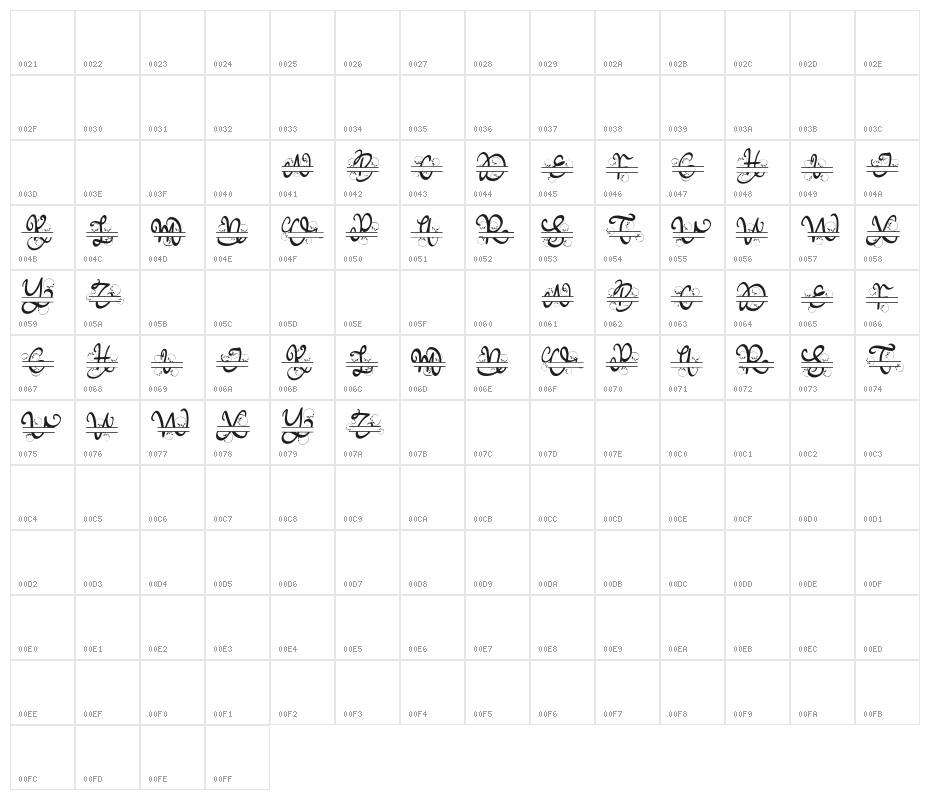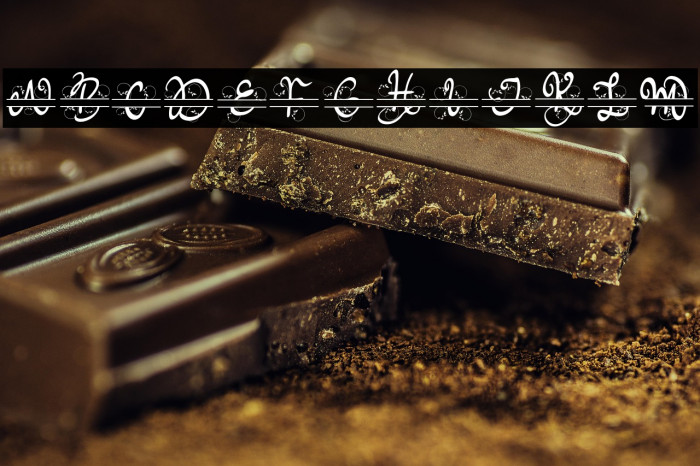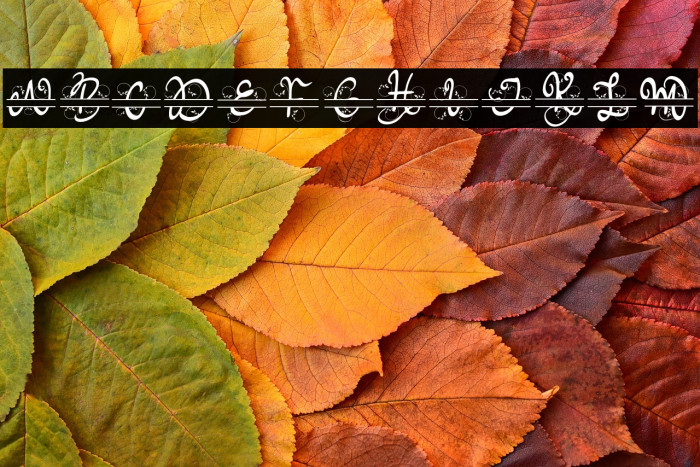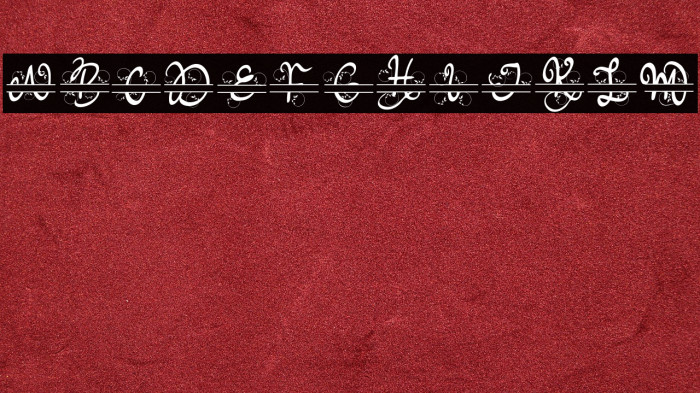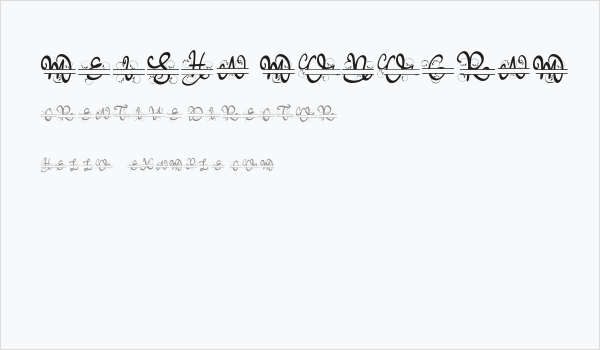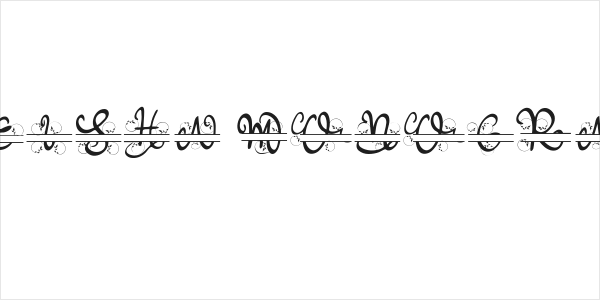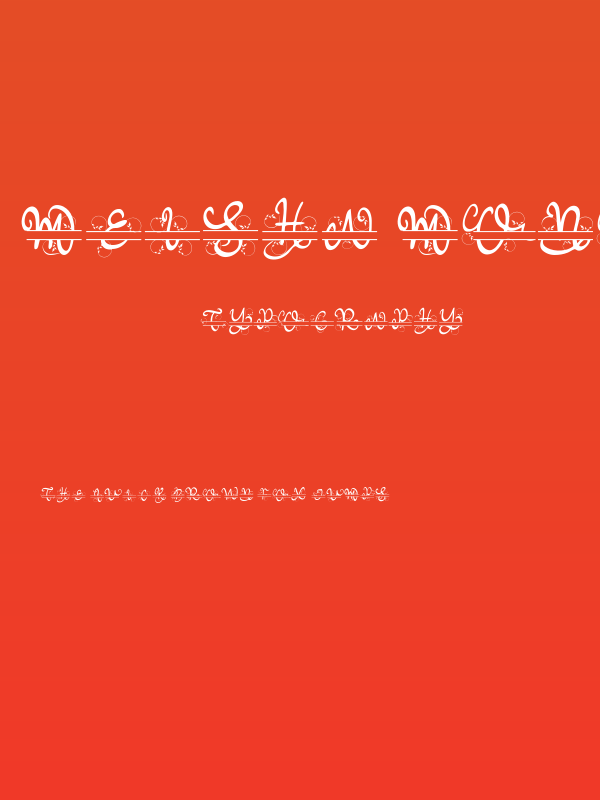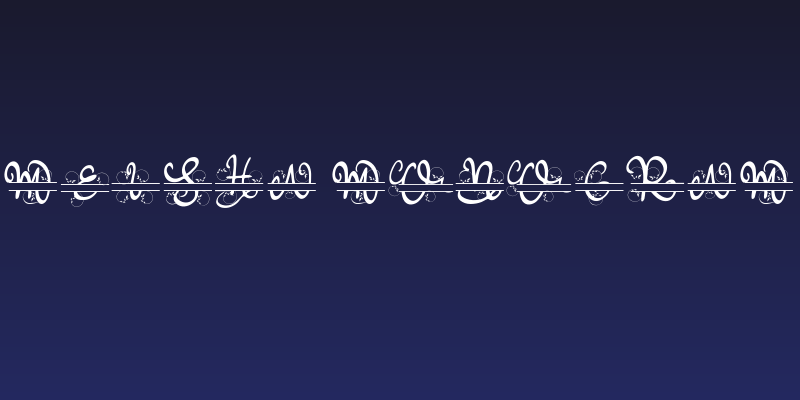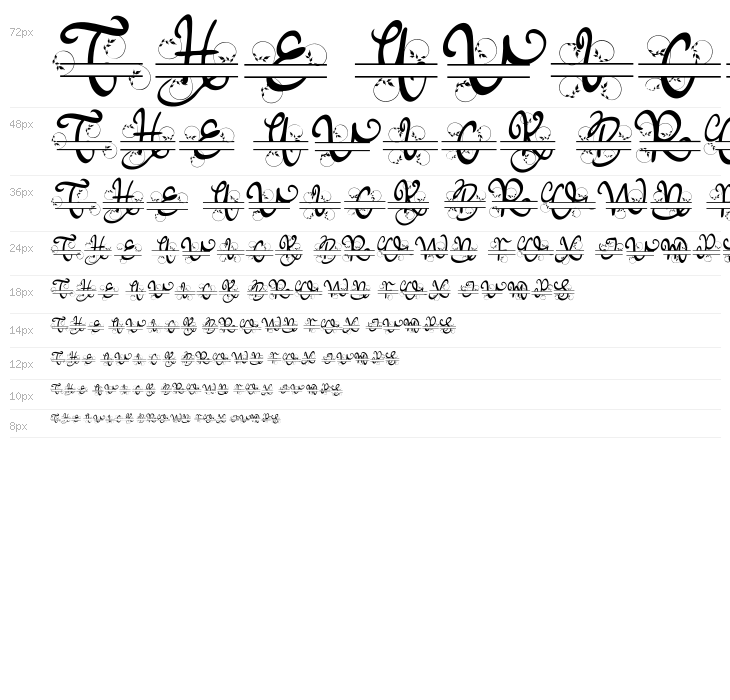
Meisha Monogram Font
Meisha Monogram Description
This font features an elaborate and decorative style, characterized by intricate swirls and flourishes that extend from each letter. The design is highly ornamental, with a strong emphasis on elegance and sophistication. Each character is crafted with a sense of artistry, making it ideal for projects that require a touch of luxury and refinement. The font maintains a consistent level of detail across both uppercase and lowercase letters, as well as numbers and special characters, ensuring a cohesive appearance. The overall aesthetic is reminiscent of classic calligraphy, yet it possesses a modern twist that makes it suitable for contemporary applications.
| Use Case | Logos, Invitations, Branding |
| Proposed Projects | Ideal for wedding invitations, luxury branding, high-end product packaging, and decorative monograms. |